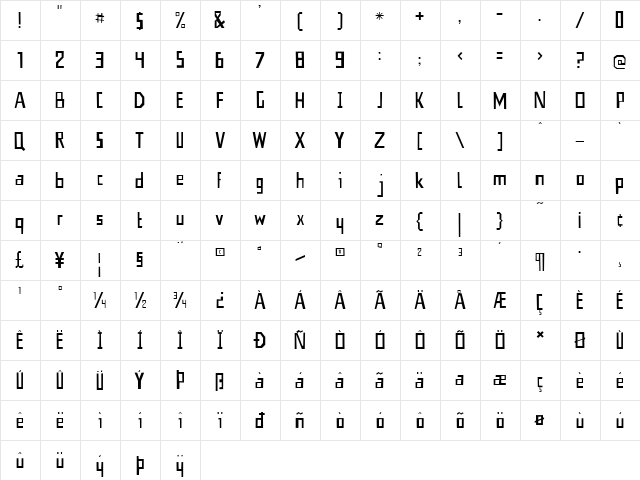
Nevermind Regular
| Designer | Max Kisman |
Design Context for Nevermind Typeface
Nevermind is a composed and adaptable typeface that performs quietly and consistently across a wide range of design contexts.